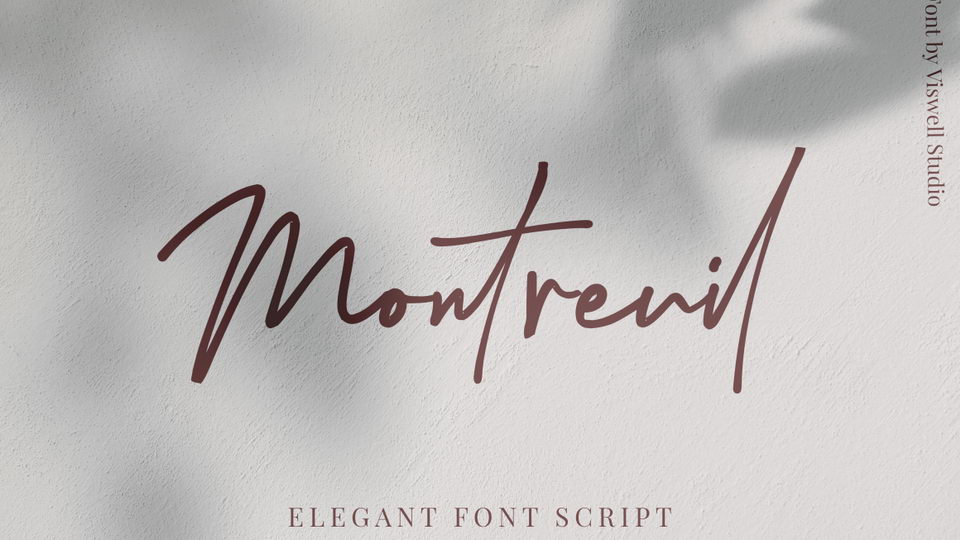
Feb 11, 2025Script & HandwrittenMontreuil Font Montreuil in an elegant signature style font created with the natural effect of handwriting. It’s stylish and classy – the right impression to describe this font. Font DetailsDesigned by: Viswell StudioWebsiteLicense: Free for personal use Download Montreuil FontFile size: 62.03 KBCreated: February 16, 2025Updated: February 16, 2025 Download Explore related fonts Belphia Font Autograph Westhelin Font Honeycomb Font Santtory Roasted Font Biancha Font Good Night Font Jareth Signature Font Richmond Woodhaven Font # Casual# Handwriting# Signature More fonts by Viswell StudioCanbera Font